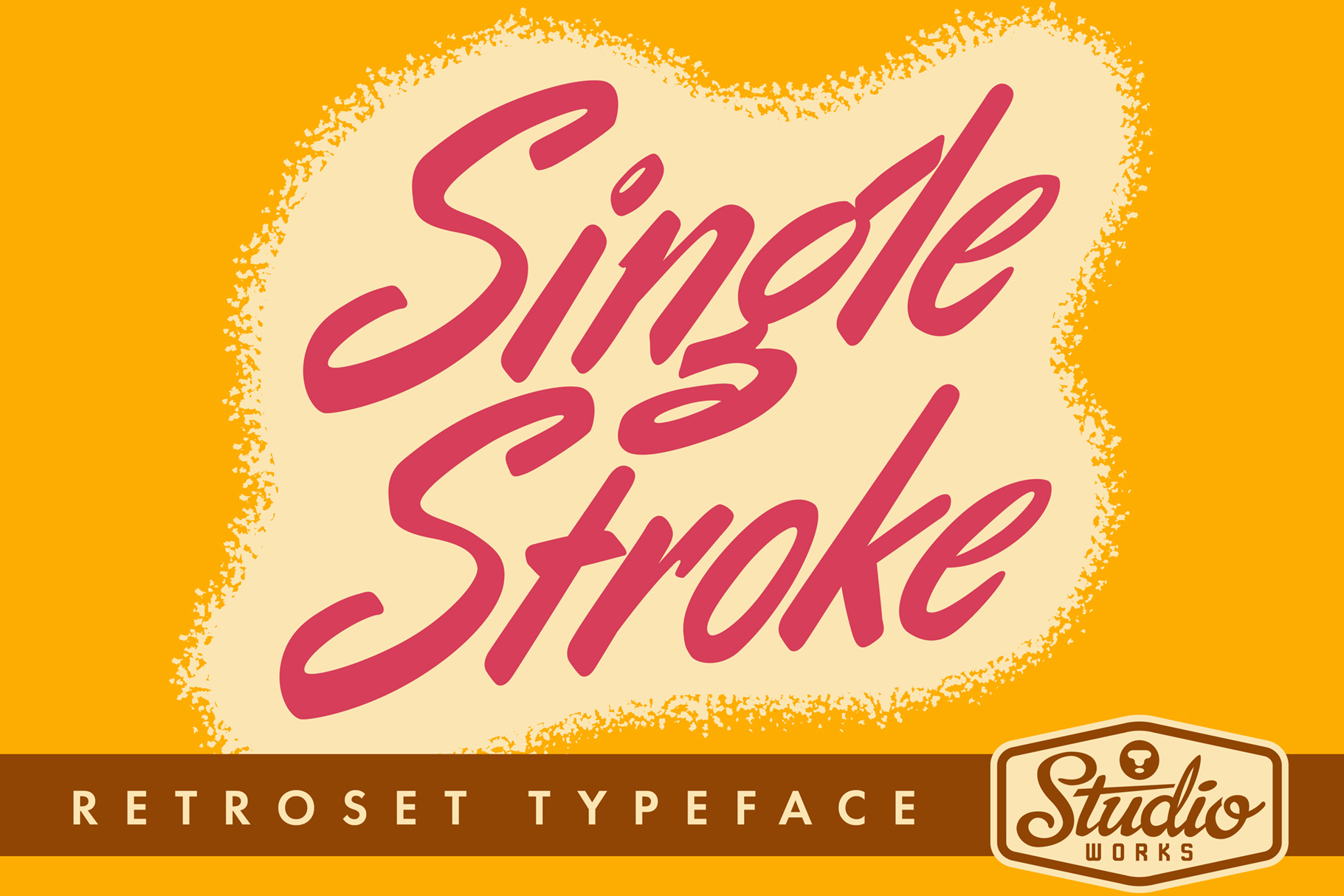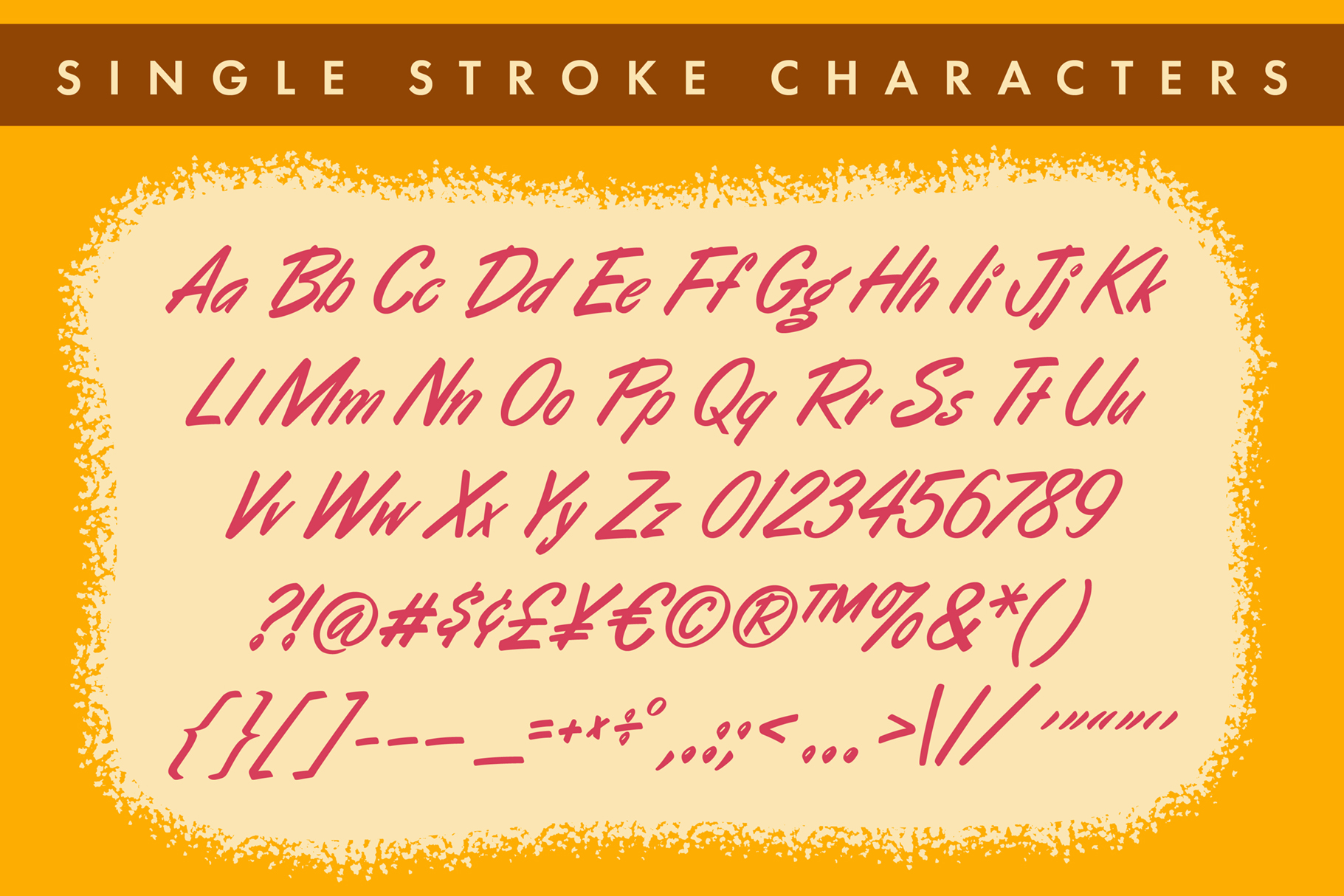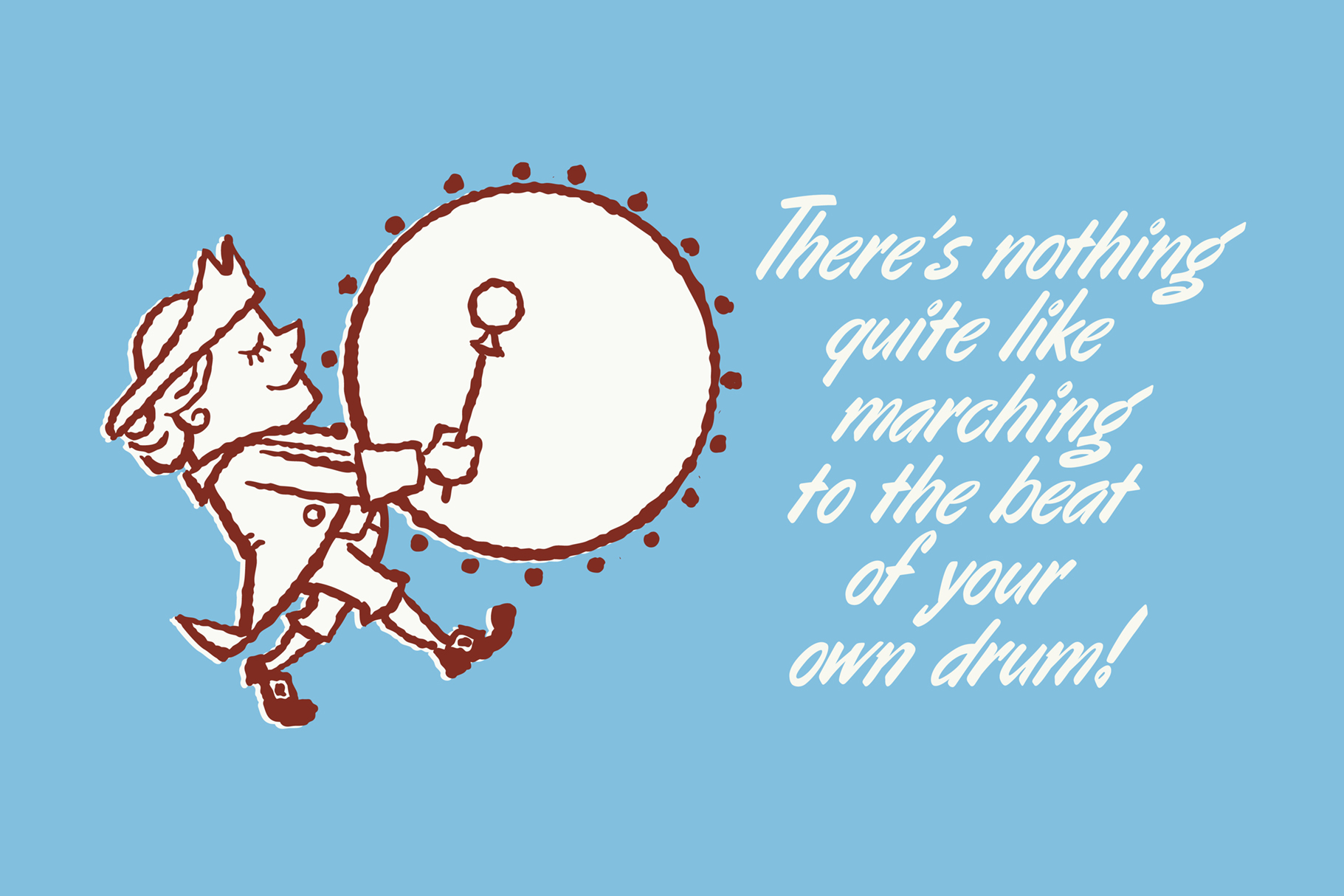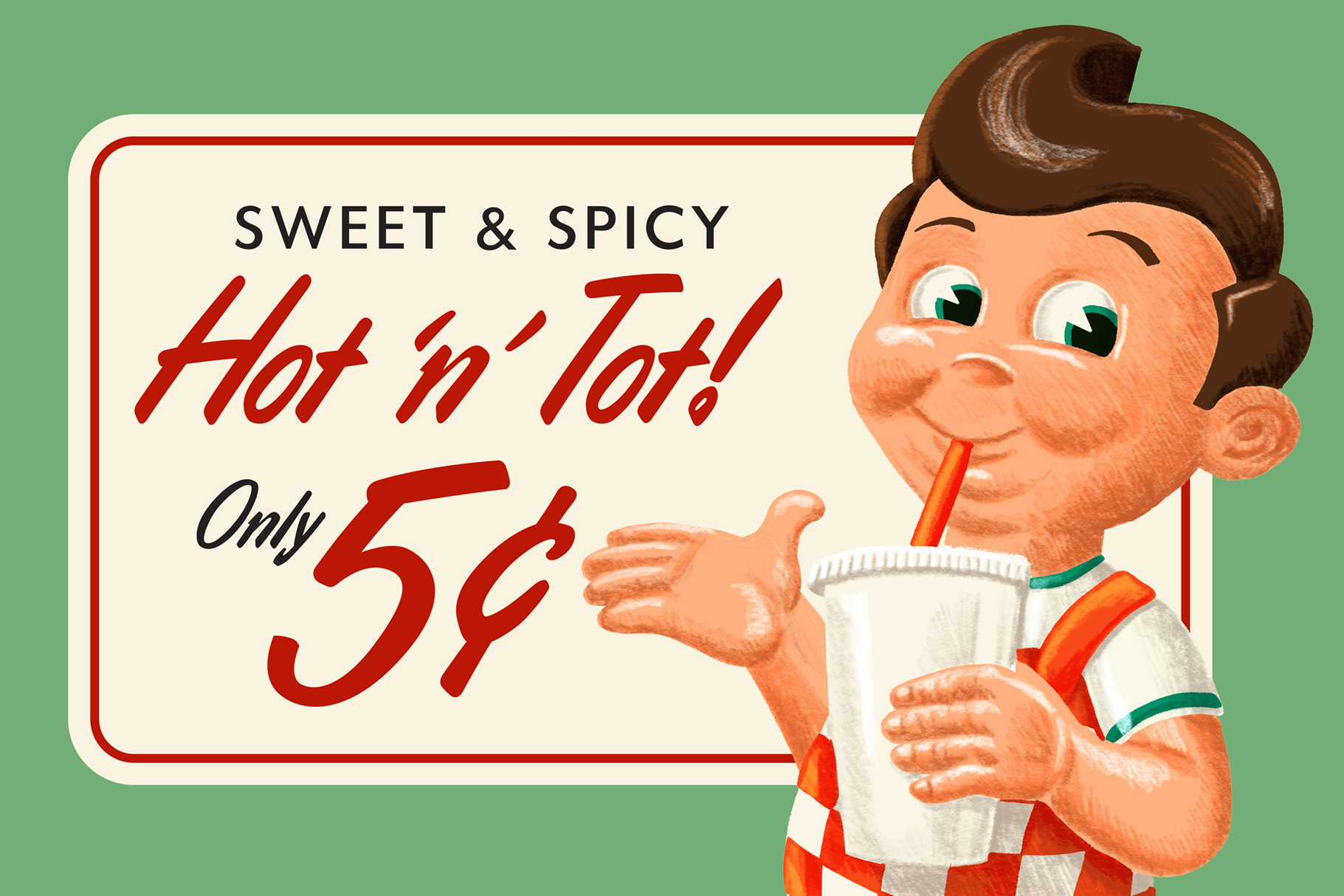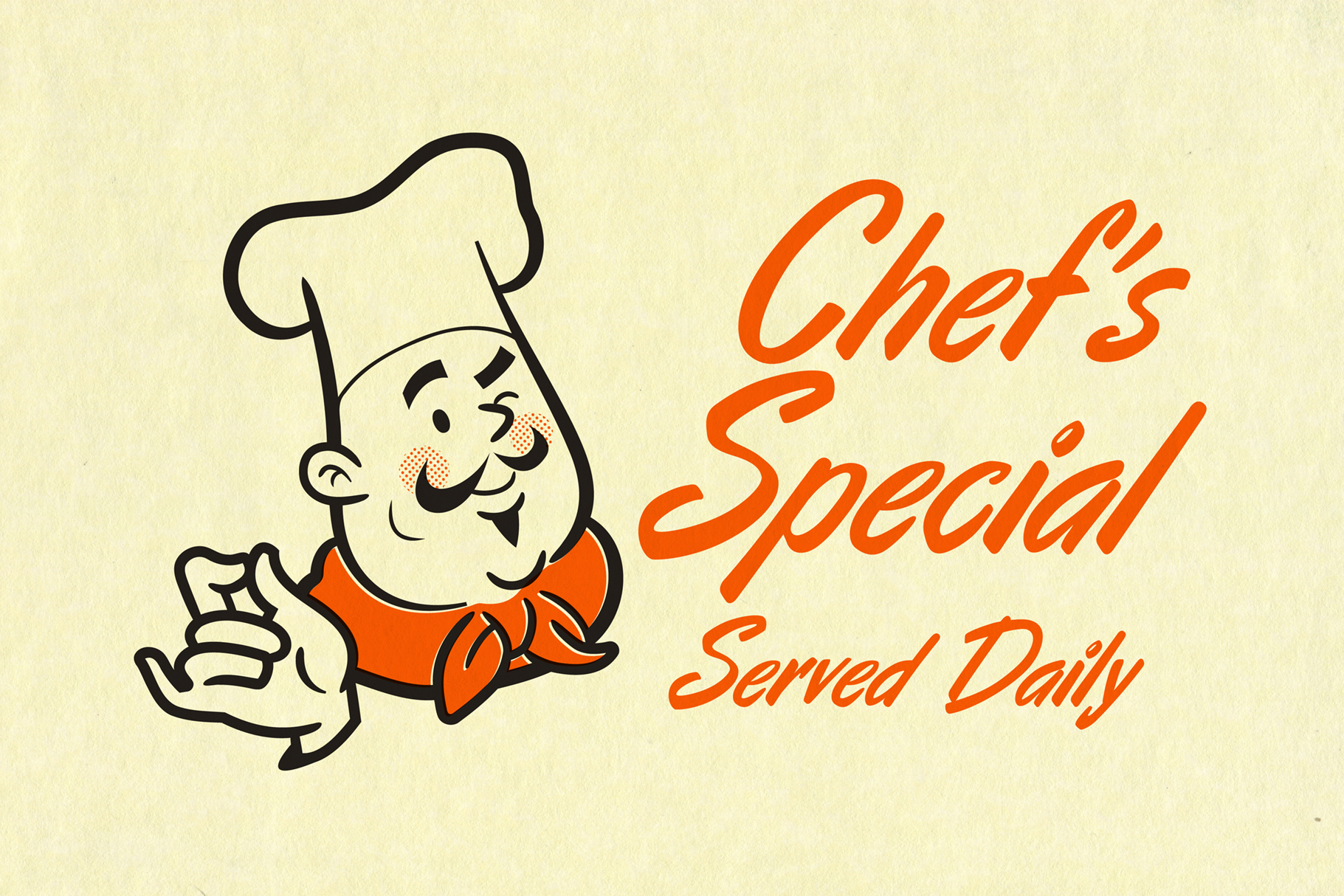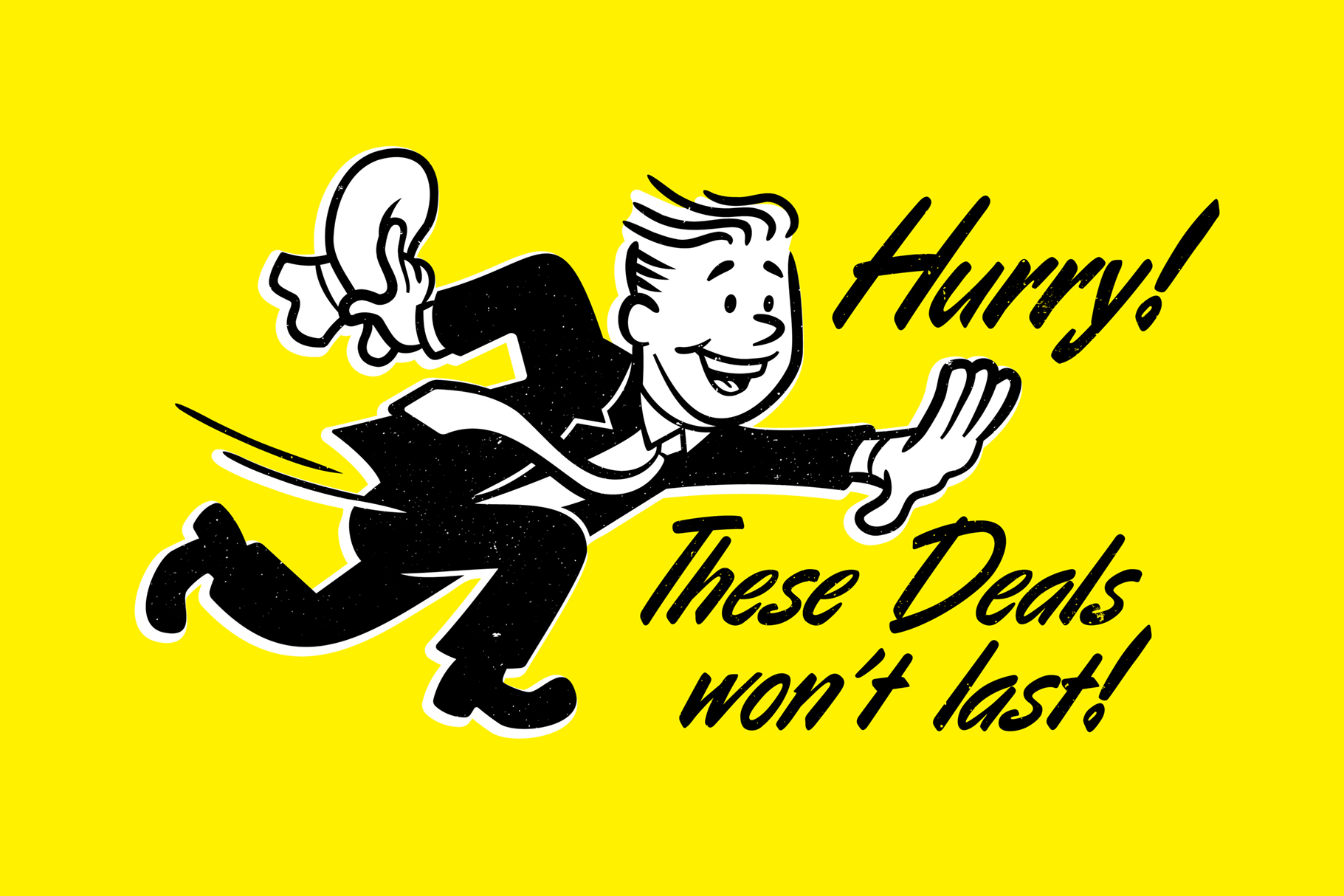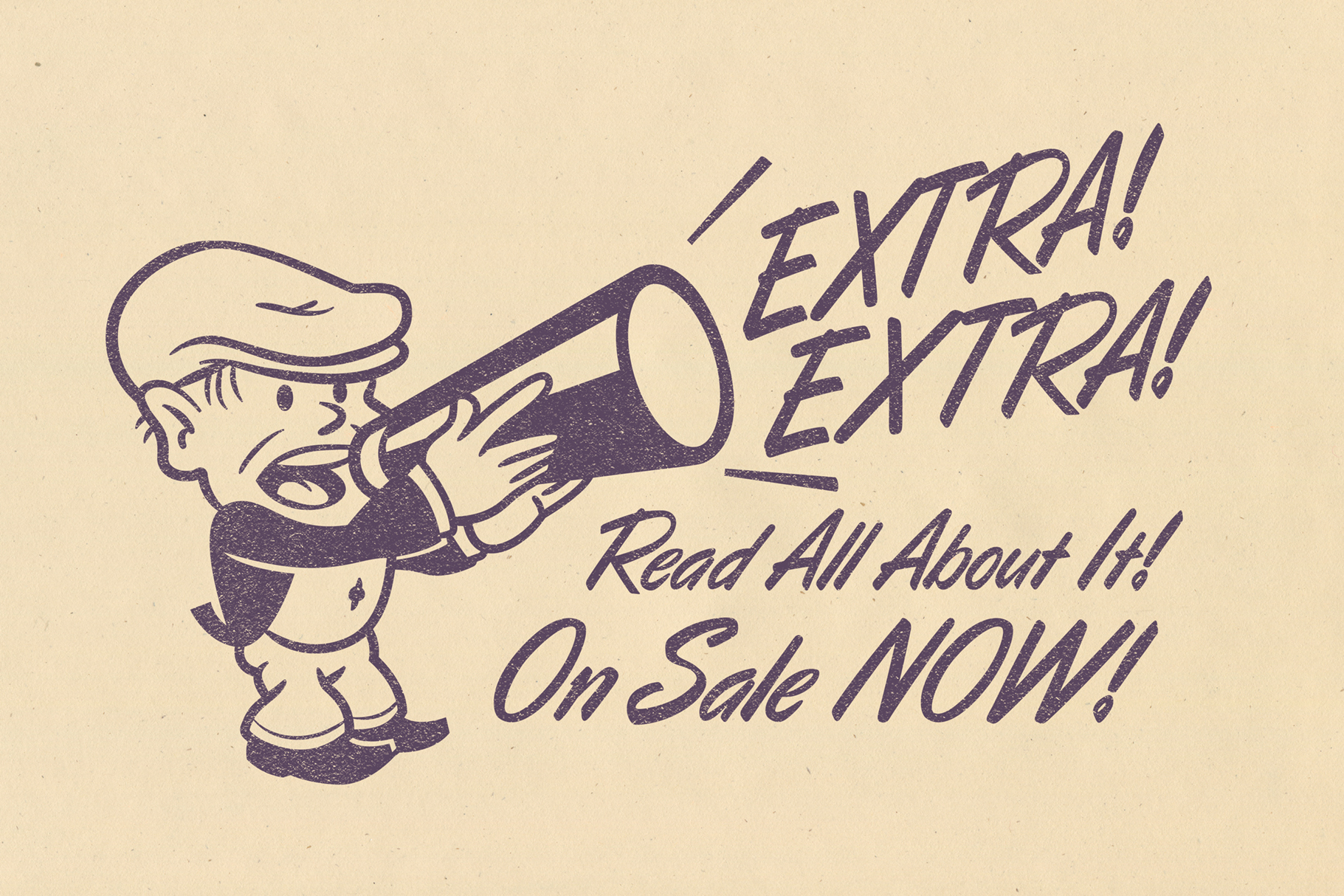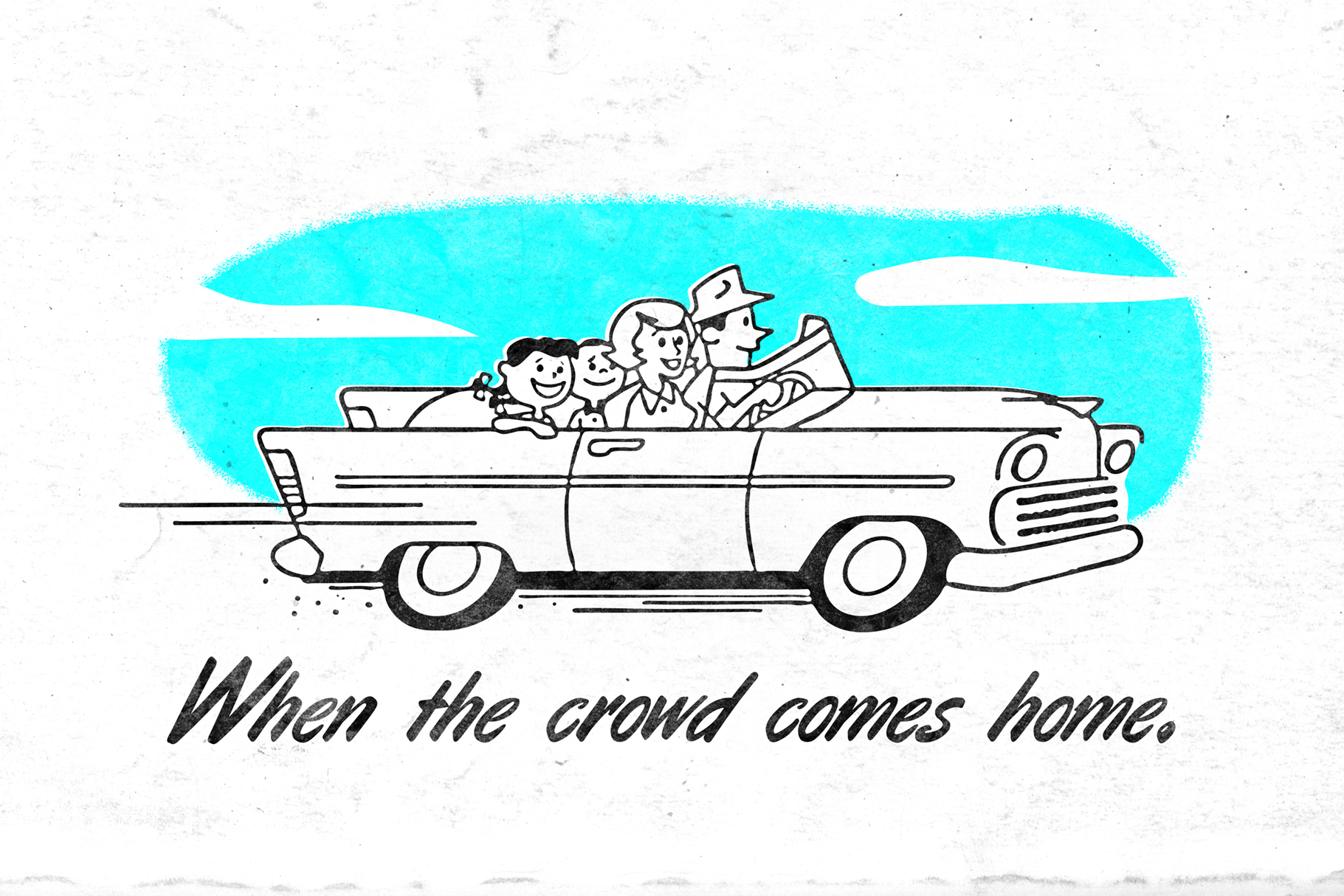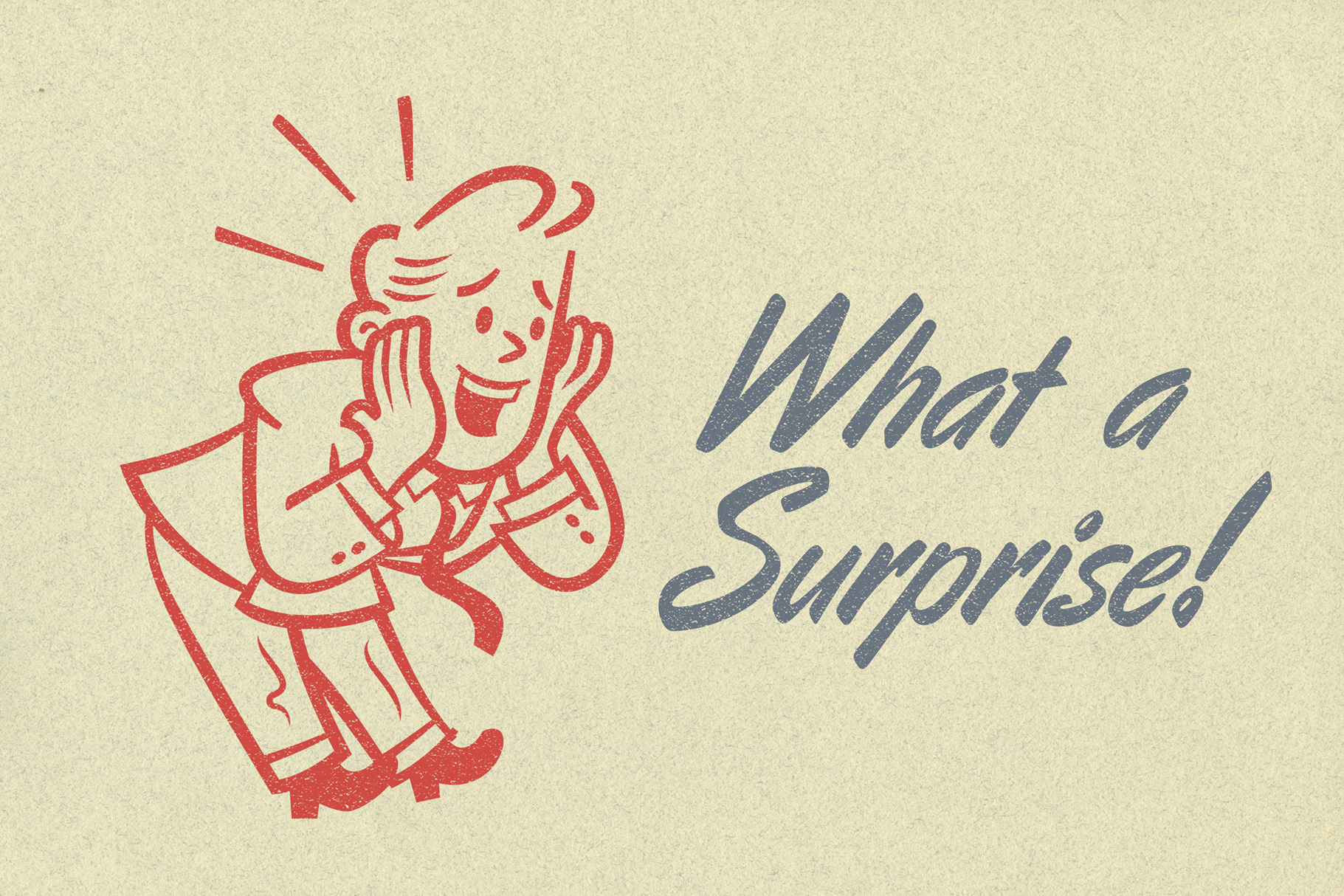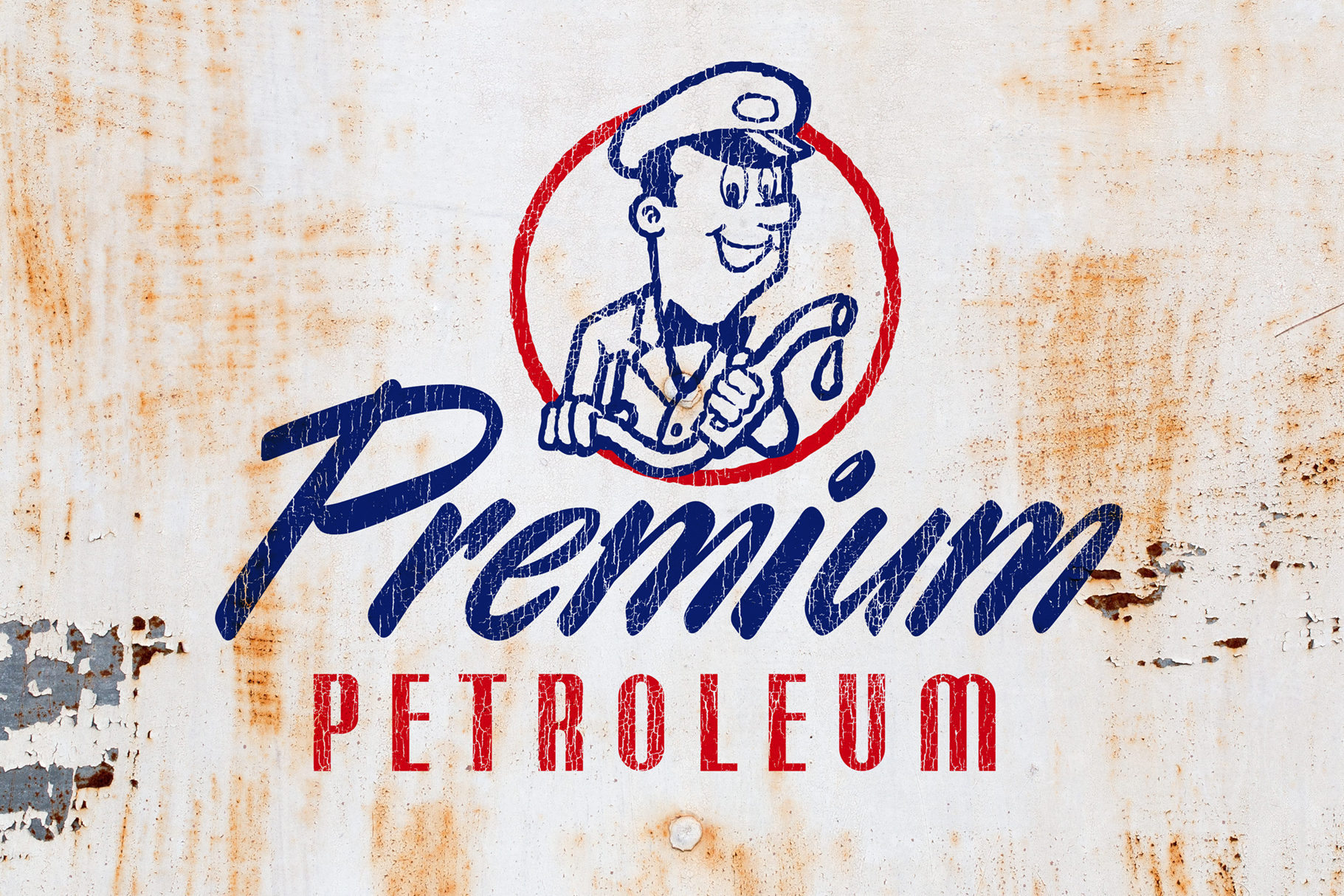
Single Stroke | Retroset Typeface!
Freshly inked and dripping with mid-century soul, it’s ••S I N G L E • S T R O K E•• — a lively retroset typeface from StudioWorks!
Sourced from the golden age of American commercial lettering, Single Stroke captures the raw energy of a brush hitting paper at full confidence. No second-guessing, no going back. Just one bold, fluid stroke that’s all business.
Typical of the kind of lettering you’d find whisked across a 1950s diner window, painted on an amusement park ride or inked across a soda pop ad, Single Stroke is perfect for headlines, logos, signage and display use.
Use Single Stroke to add warmth and timeless personality to your designs. Great for that authentic hand-lettered look on everything from brand packaging to apparel. Use it on posters, logos and signage to give your product a friendly look with an established shelf presence. Highly legible and endlessly versatile, Single Stroke is loose, fluid and dripping with personality.